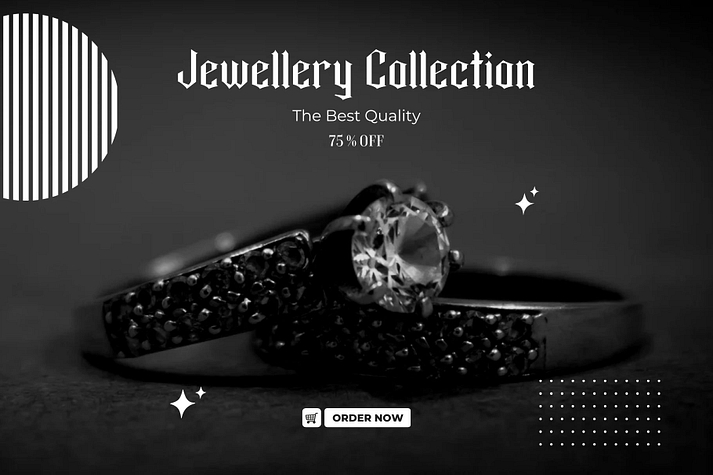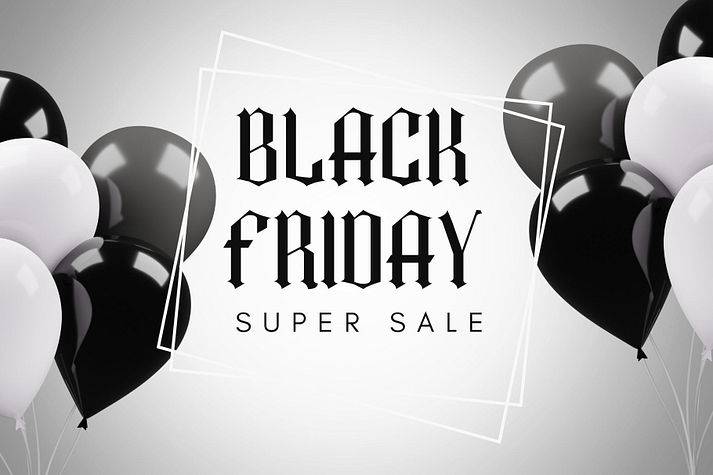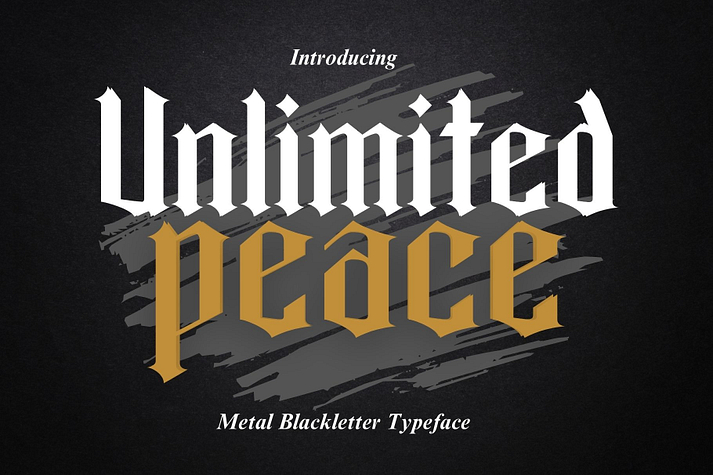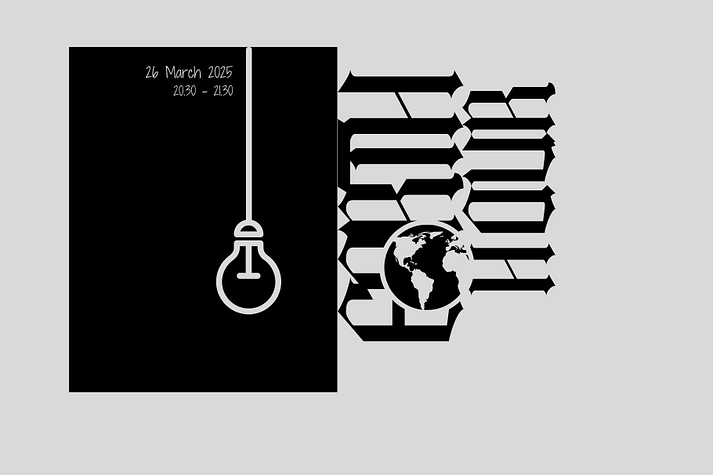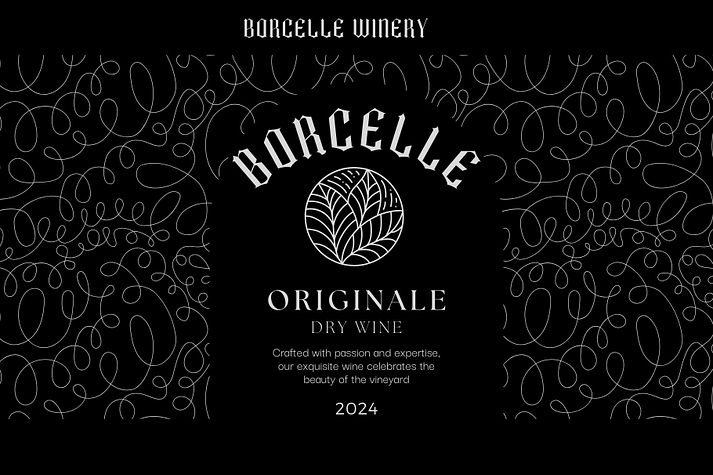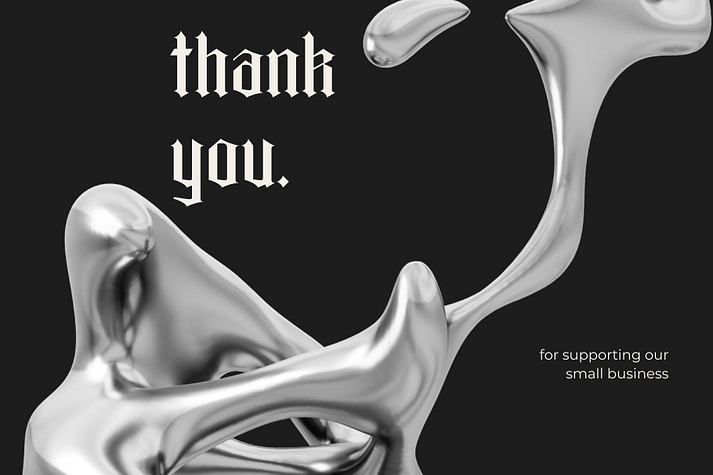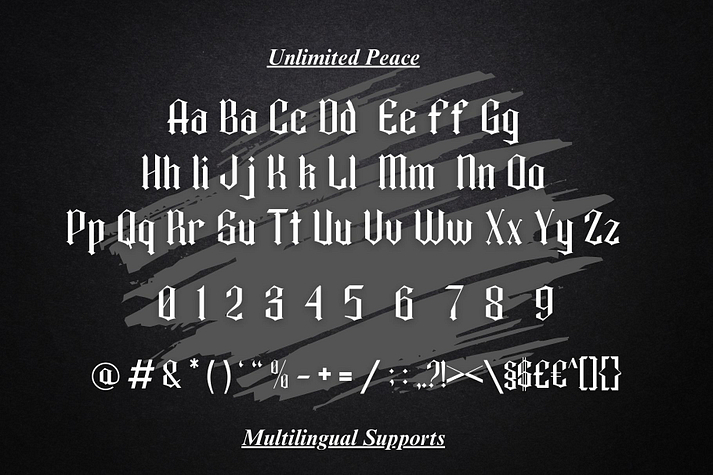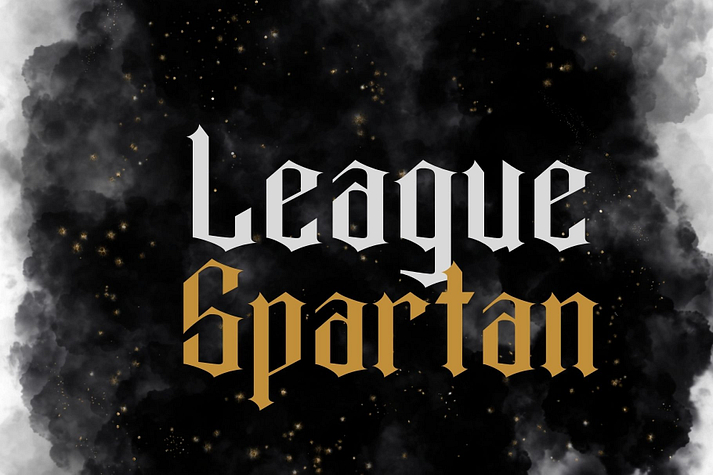
Unlimited Peace
Unlimited Peace is a font family published by Aditastudios.
Unlimited Peace is a stylish and bold blackletter font. Unlimited peace offers beautiful typographic harmony for a diversity of design projects, including logos and branding, social media posts, advertisements or product designs.